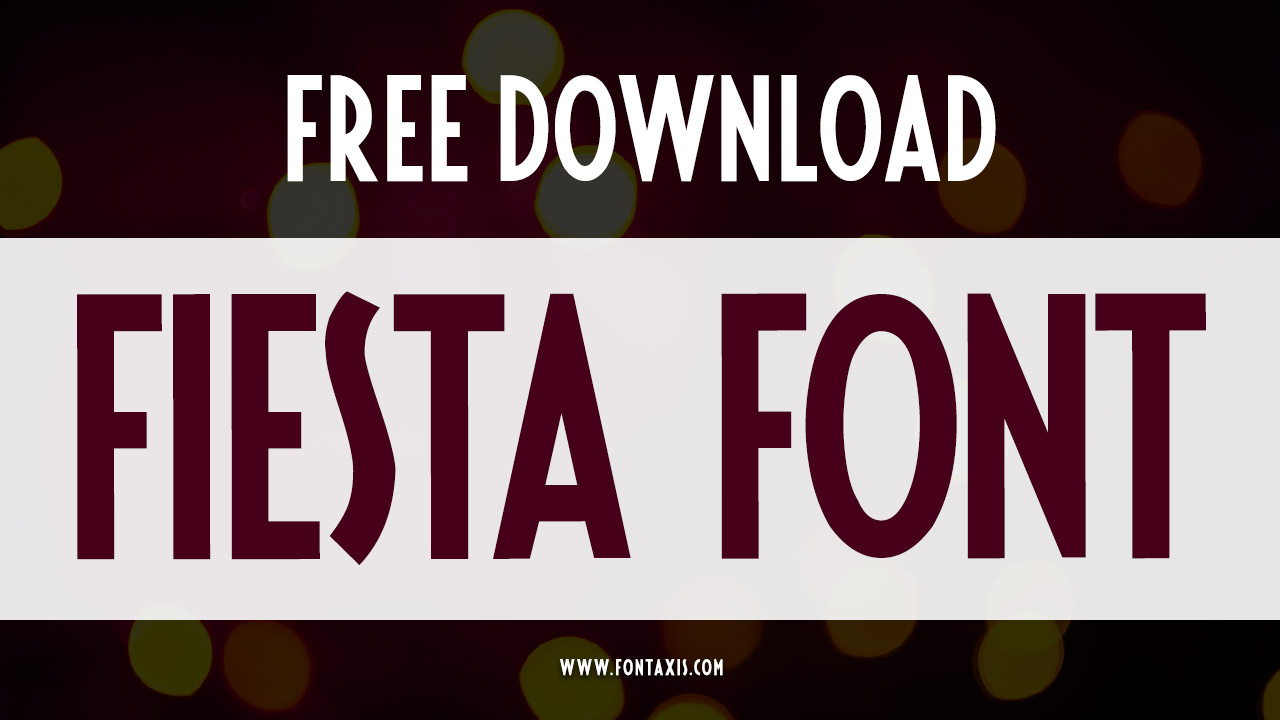
Fiesta is a playful and vibrant font designed by Aerotype and published by Monotype. Released on December 12, 2001, Fiesta brings a touch of Mexican fiesta culture to your design projects.
Whether for invitations, posters, or logos, this font embodies the lively and festive spirit with its decorative style and fun details. The Fiesta font family is ideal for making bold statements in retro, Mexican-themed designs, such as Cinco de Mayo or tequila-themed events.
Fiesta Font Information In Chart
| Name | Fiesta |
| Style | Regular (Fancy, Retro) |
| Designer | Aerotype (Published by Monotype) |
| Type | Display, Decorative, Retro |
Fiesta Font Family Includes
- Fiesta Regular
Where Fiesta Is In Use
- Mexican fiesta and Cinco de Mayo event invitations
- Retro-style posters and flyers
- Bold headlines for creative projects
- Greeting cards with a festive theme
- Logos with a vintage or Mexican flair
- Branding for tequila and Mexican culture-inspired products
- Illustrations and typography for creative, playful projects
- Decorative elements in design projects
- Banners for promotional use
- Mexican font themes and cultural designs
- Style for party and event promotional materials
- Fiesta pairs well with clean, modern fonts such as Montserrat or Helvetica Neue for contrast.
- For a more retro feel, pair Fiesta with Avenir Next for balance.
- Fiesta can also be combined with Neon Absolute Sans for a funky and youthful look.
Fiesta is a vibrant and playful decorative font that captures the essence of retro and Mexican culture. Whether you’re working on invitations, logos, posters, or any creative design project, this font adds a fun and bold touch.
4.Where Can I Use Fiesta Font?
Fiesta is ideal for a variety of creative applications. It’s particularly suited for posters, logos, and headlines due to its bold and festive style. The font works well for projects inspired by Mexican culture, such as event invitations, restaurant branding, or themed designs. Its vibrant aesthetic adds personality and flair to any project.